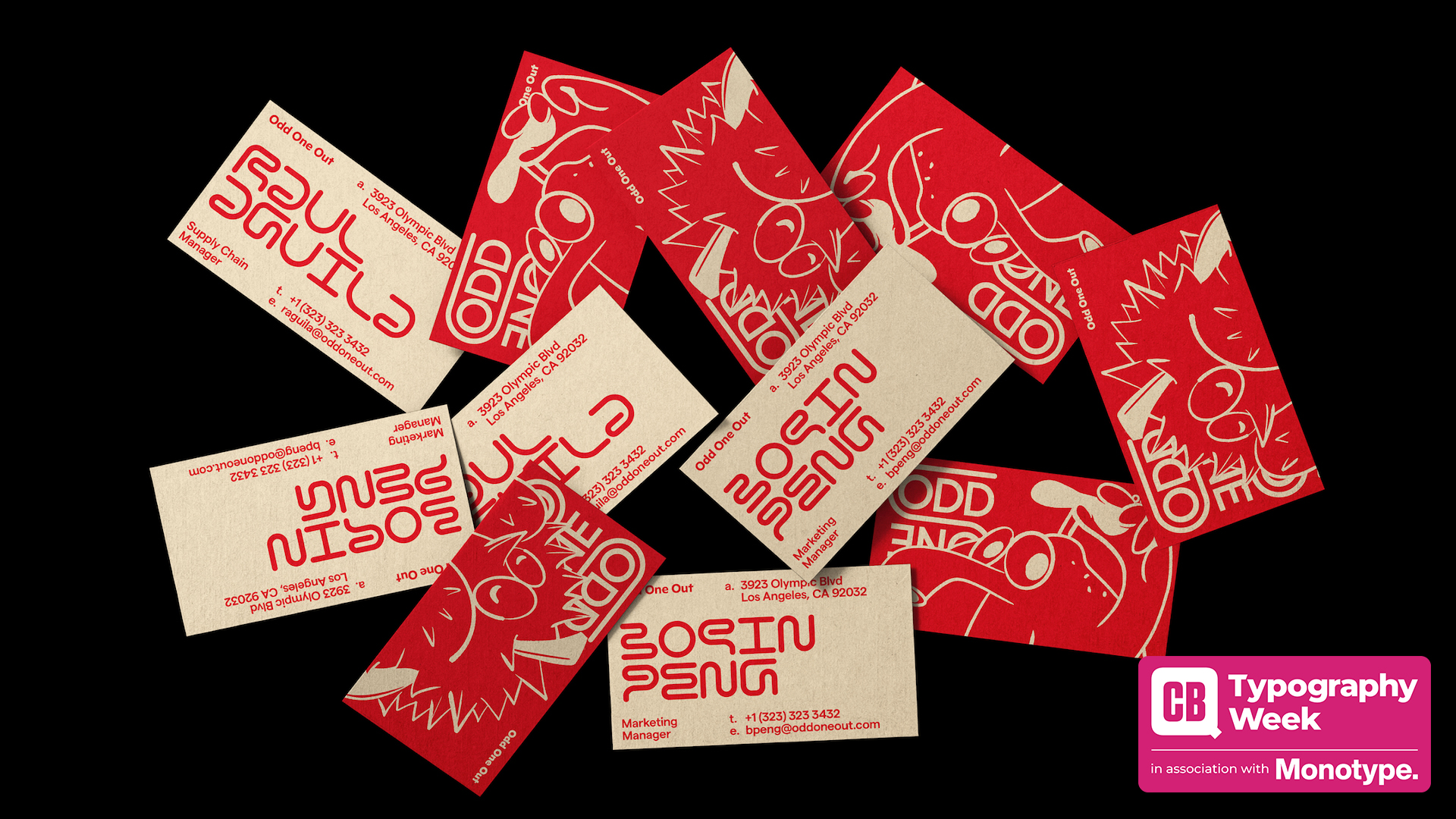
'The beauty of typography is that there are no rules': Brian Cho on working with fonts
We talk to the designer about a recent type-led project.
It's Typography Week here at Creative Bloq, and to mark the occasion we've been catching up with designers across the globe to learn about their approach to type, and how fonts impact their work.
Brian Cho is a graphic designer based in San Francisco, California, working in tech with a focus on art direction and brand identity. His work blends creativity with strategic thinking, focusing on crafting compelling visuals that resonate across diverse platforms. Whether developing brand identity, art direction, or refining the nuances of typography, he aims to create designs that connect with audiences and elevate brand narratives.
Can you tell us about a recent creative project that involved typography?
In 2023, I initiated a passion project to create a brand identity for a hypothetical café called Odd One Out, which specializes in a diverse array of unique coffee concoctions enjoyed around the world. The identity features a custom typography called Odd Type that was integrated throughout the identity system. The typeface was inspired by the landscape of the coffee farm and the patterns used by coffee farmers to dry their beans.
What were the challenges and rewards involved with this project?
This project holds a special place in my heart because it was entirely self-initiated, allowing me to express my creativity during my free time outside of my full-time job. Throughout the process, I faced numerous challenges, including daily self-doubts and experimentation with unfamiliar mediums like illustration and photography. However, these struggles were incredibly rewarding, as they pushed me to learn and grow, ultimately leading to results that exceeded my expectations.
How do you think your use of type impacted the overall result?
The custom typography was key in making this identity feel distinctive, giving the café a fun and unique personality. It was integrated into every aspect, including business cards, menus, and the website. My goal was for people to remember this café not only for its unique drinks but also for its quirky vibe. The typography was crucial in crafting this atmosphere, as it helped convey the café's character and set it apart from others. In my view, typography is fundamental to a memorable brand identity, shaping how it is perceived and remembered.
Do you have any advice for designers considering embarking on a type-led design project?
When working on type-heavy projects, I always start by thoroughly understanding the message I want to convey. This makes it easier to choose fonts that align with the project’s tone and audience, as typography is a powerful tool for setting the mood. Once you’ve chosen the right font, experiment with scale and hierarchy to create an interesting composition. The beauty of typography, and design in general, is that there are no set in stone rule, so don’t be afraid to mix and match typefaces. Tools like Monotype's font pairing feature can be incredibly helpful.